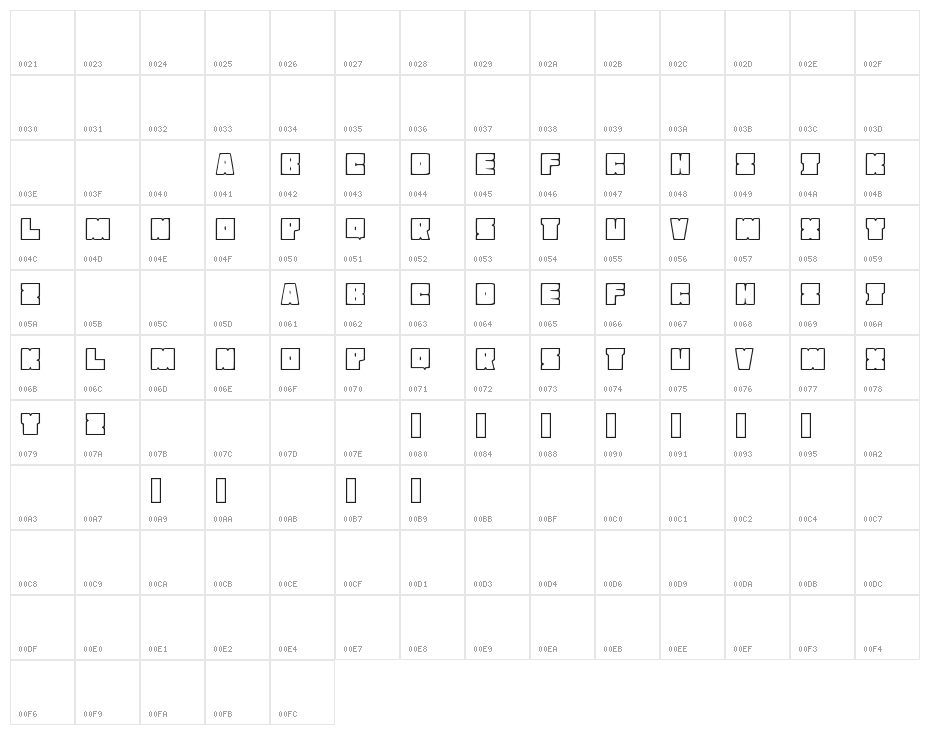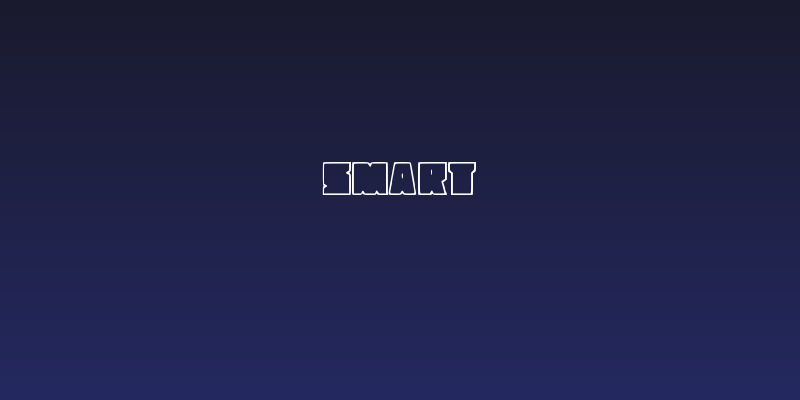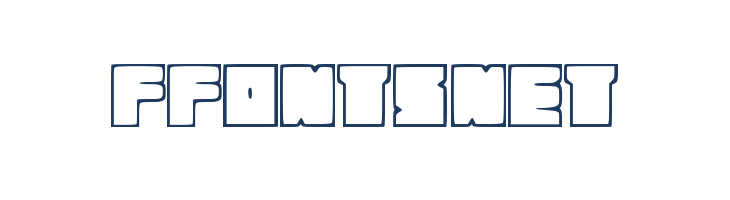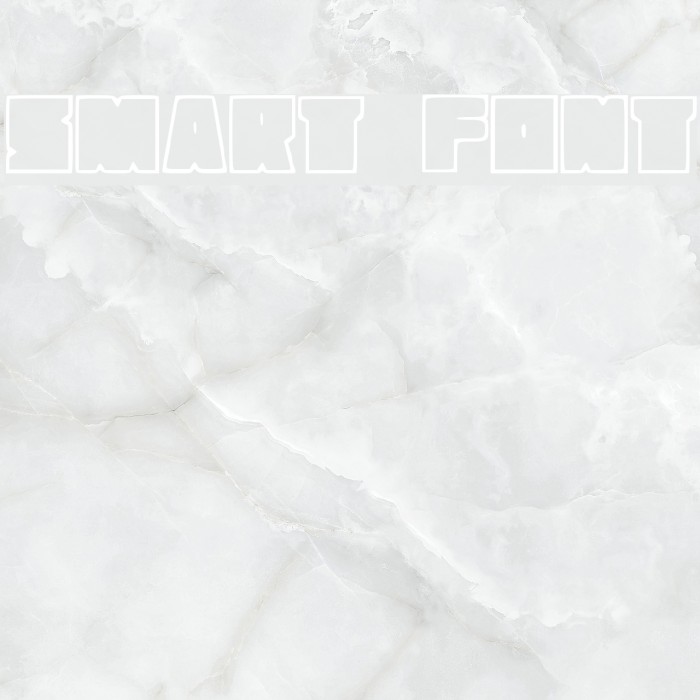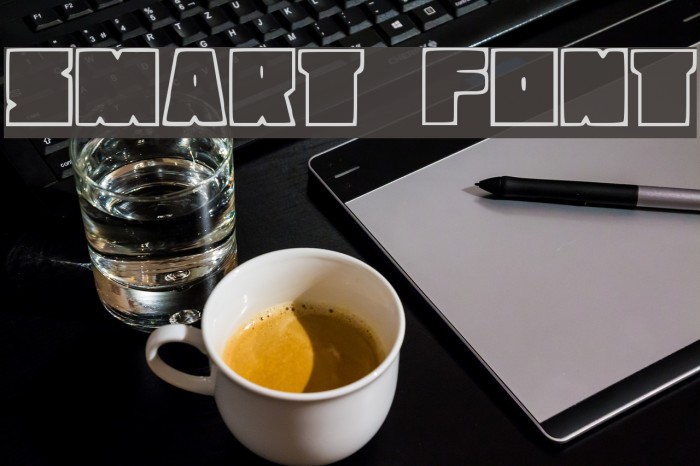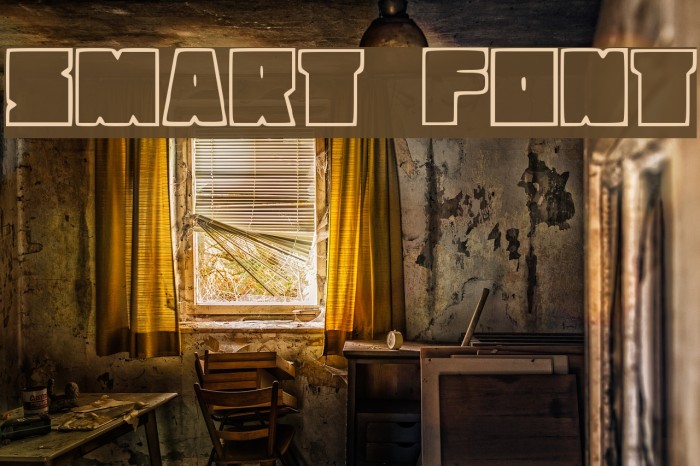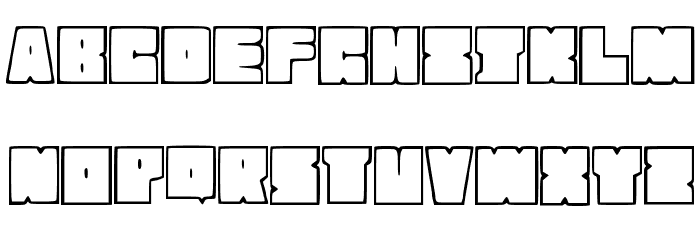
smart Font
smart Description
This font features a bold, geometric design with a distinct blocky appearance. Each character is outlined, creating a striking visual effect that emphasizes its angular and structured form. The letters are uniformly wide, giving the font a consistent and cohesive look. The style is reminiscent of retro or arcade aesthetics, making it ideal for projects that require a strong, impactful presence. The uppercase letters are particularly dominant, with sharp edges and a uniform height that enhances readability. This font does not include lowercase letters or numbers, focusing solely on uppercase characters to deliver its bold statement.
| Overall Style | Retro |
| Proposed Projects | Ideal for retro-themed designs, video game graphics, posters, and branding that requires a strong, impactful typeface. |